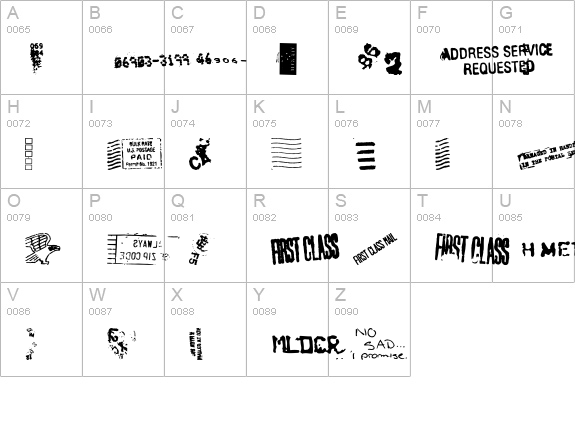
Dead Letter Office Fifteen font is a unique and artistic typeface that exudes a vintage and mysterious charm. With its slightly distressed appearance and intricate details, this font is perfect for adding a touch of nostalgia and character to your design projects. The elegant yet slightly haunting look of Dead Letter Office Fifteen font makes it ideal for creating eye-catching headlines, posters, and branding materials that stand out from the crowd. What's even better is that Dead Letter Office Fifteen font is completely free to download at FontsMarket.com. So, whether you're a designer looking to add a touch of old-world charm to your work or someone who simply appreciates the beauty of a well-crafted font, be sure to check out Dead Letter Office Fifteen font and unleash your creativity without any cost involved.